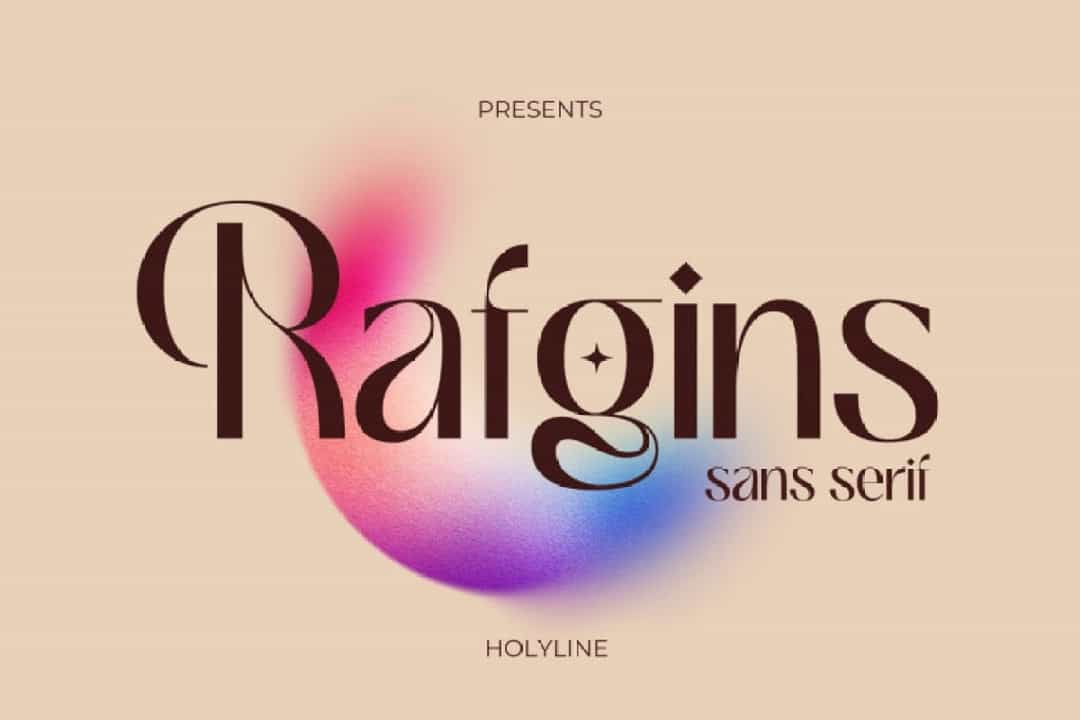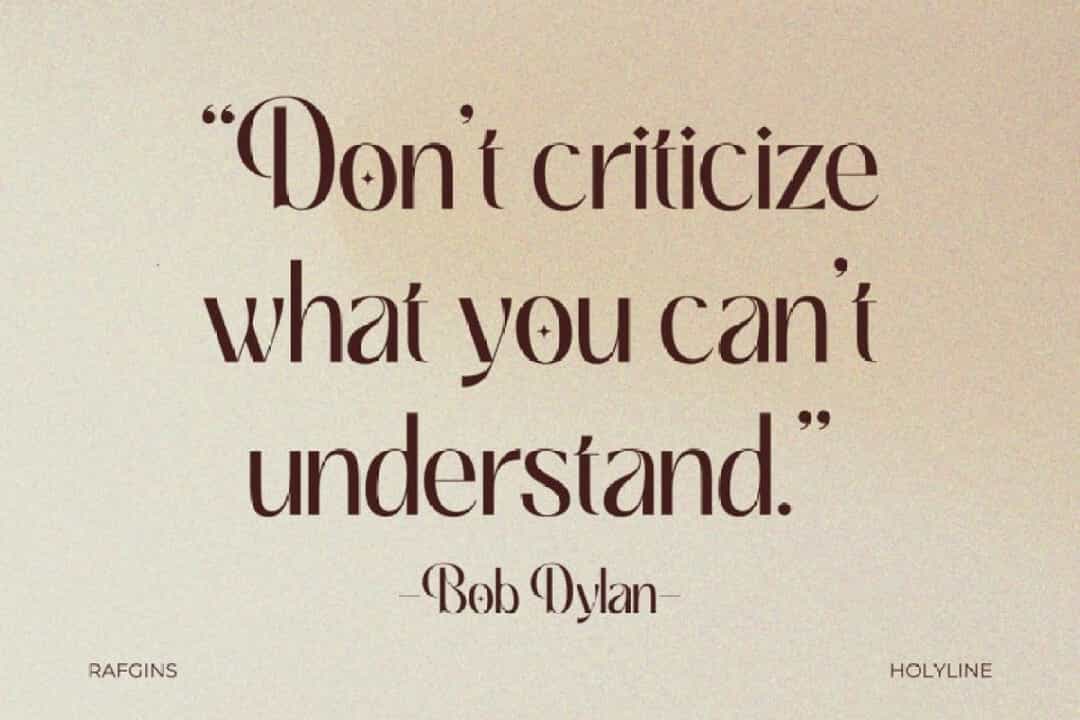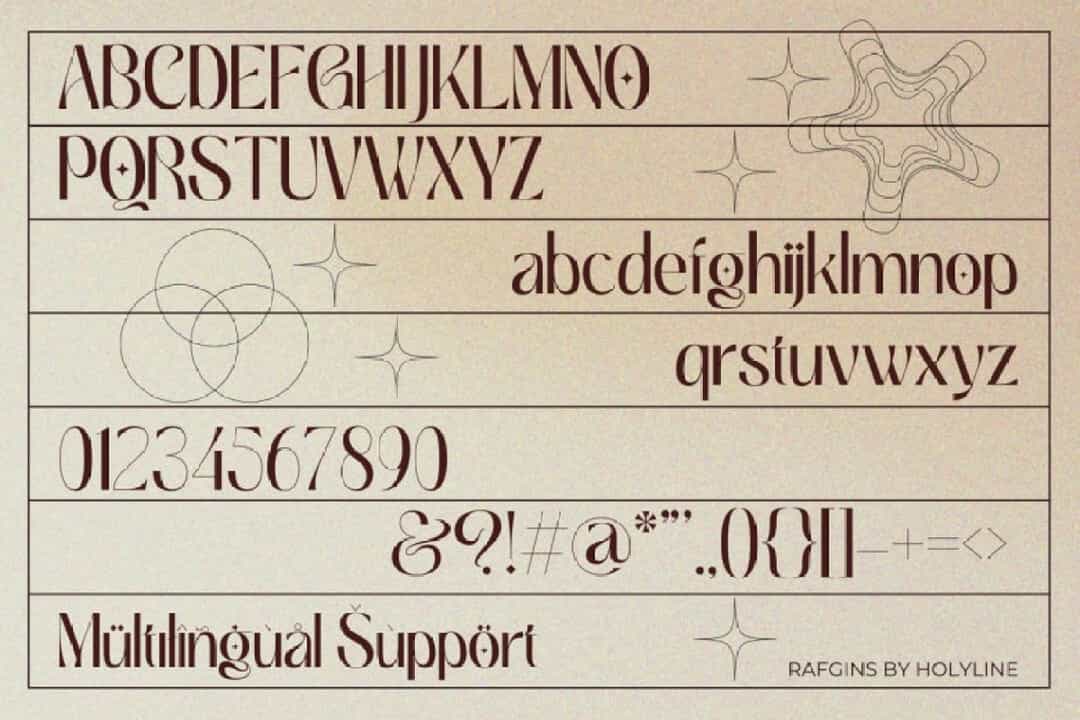
Rafgins is an elegant and modern sans serif font designed with elegance in mind. Its simple lines and sleek design exude subtlety, adding professionality to branding or typography projects. Plus its sophisticated and flexible style are sure to excite.